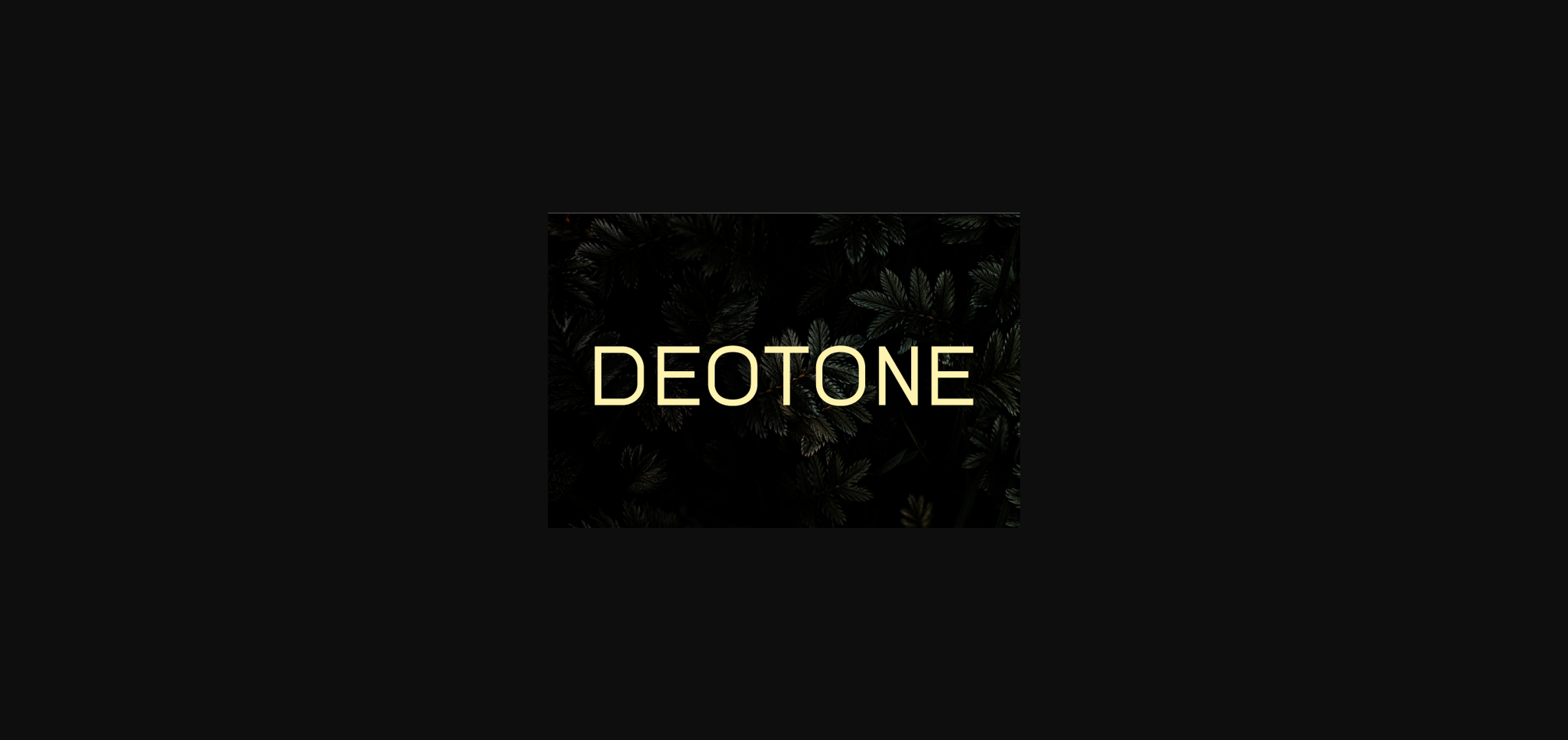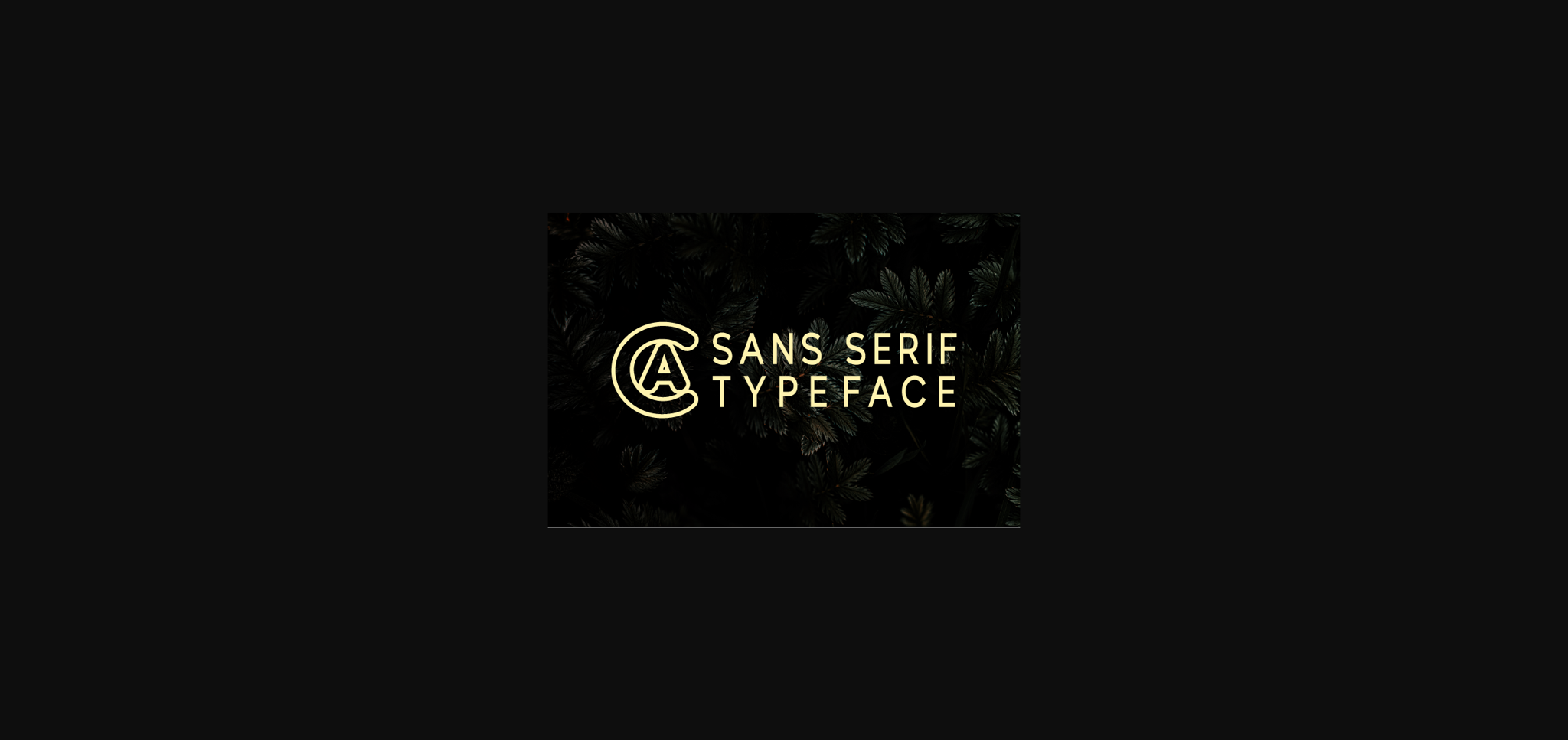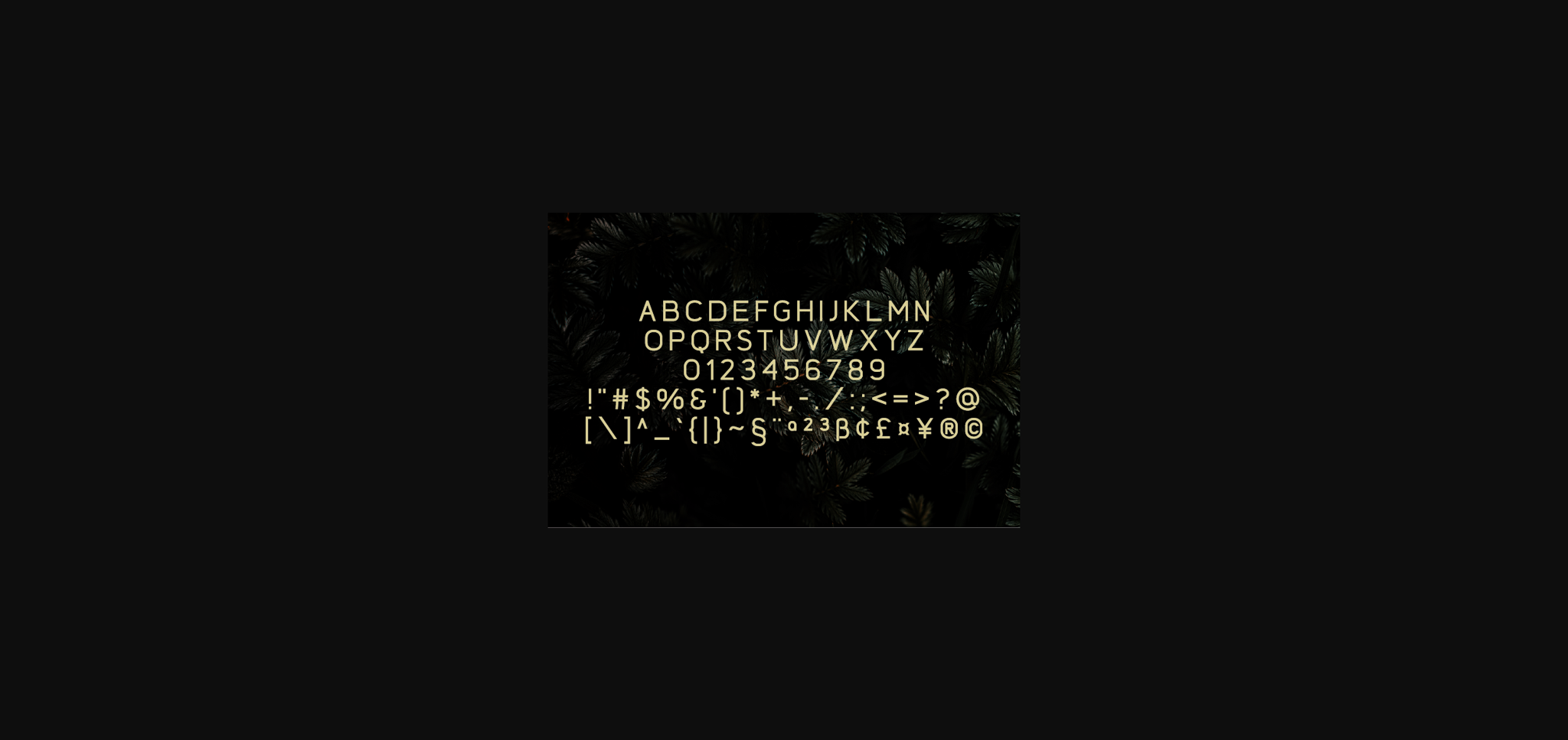
HomeSans Serif FontsDeotone Font Sans Serif Fonts Deotone Font FacebookXPinterestWhatsApp 1 of 5 ... Deotone Font Poster 2... Deotone Font Poster 3... Deotone Font Poster 4... Deotone Font Poster 5... About Deotone Font Deotone is a simple and casual sans serif font with an undeniably clean feel. With its neat and beautiful arrangement of letters, this typeface will look outstanding in both formal and non-formal designs. DOWNLOAD NOW People also explored Notalistic Font Framerly Font King of Love Font Eating Mood Font Fleshy Family Font Camping Doodle Font Shallymore Font Gameday Font Fendysa Font 427 0 TagsDeotoneDeotone Font Previous articleCoolette FontNext articleLutlme Font LEAVE A REPLY Cancel reply Comment: Please enter your comment! Name:* Please enter your name here Email:* You have entered an incorrect email address! Please enter your email address here Website: Save my name, email, and website in this browser for the next time I comment. Personal Use Free Casual Personal Use Free Read more about this font Foolish Hand Personal Use Free Read more about this font Rakesly Personal Use Free Read more about this font Malinda Personal Use Free Read more about this font BLOG Free Fonts Risk: Why Free Fonts Can Be Dangerous for Designers Free Fonts Risk: Why Free Fonts Can Be Dangerous for Designers Using free fonts is a common practice in web and graphic design. However, the... To increase your work productivity, choose the most readable fonts. Using Fonts in Digital Marketing: Tips to Strengthen Your Brand Identity The 10 Best Handwriting Fonts to Add Personality to Your Designs